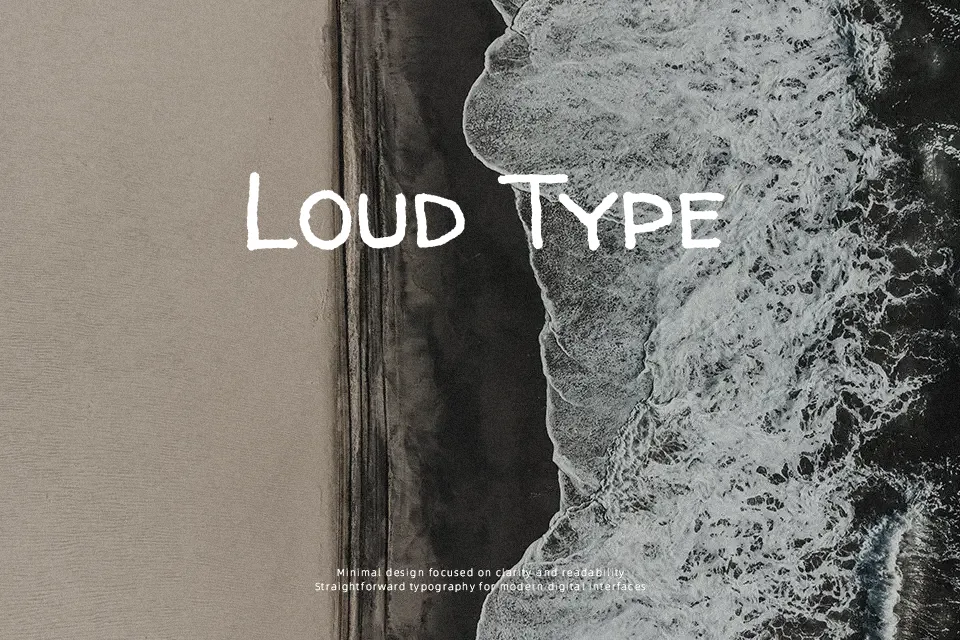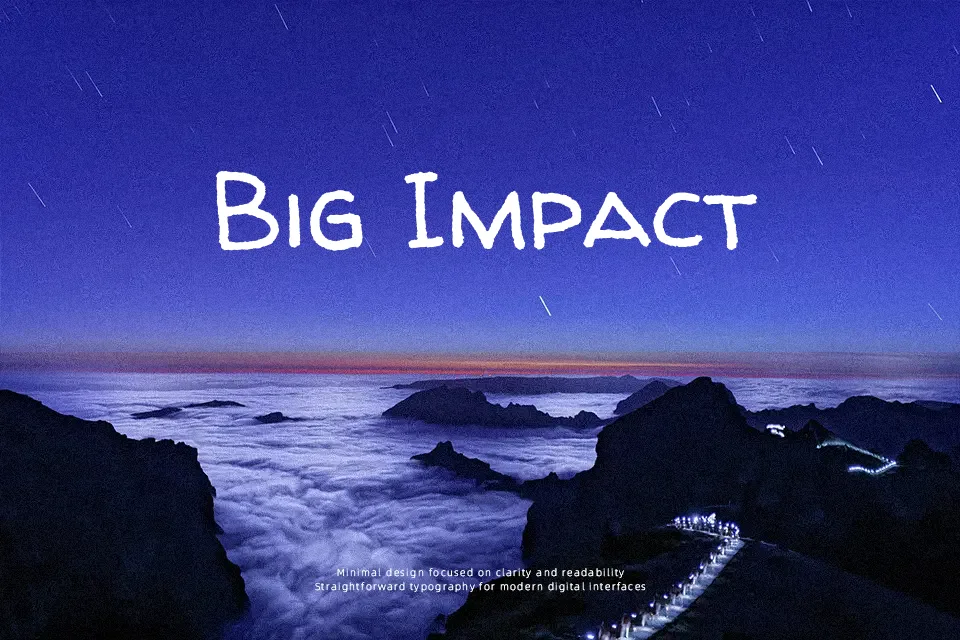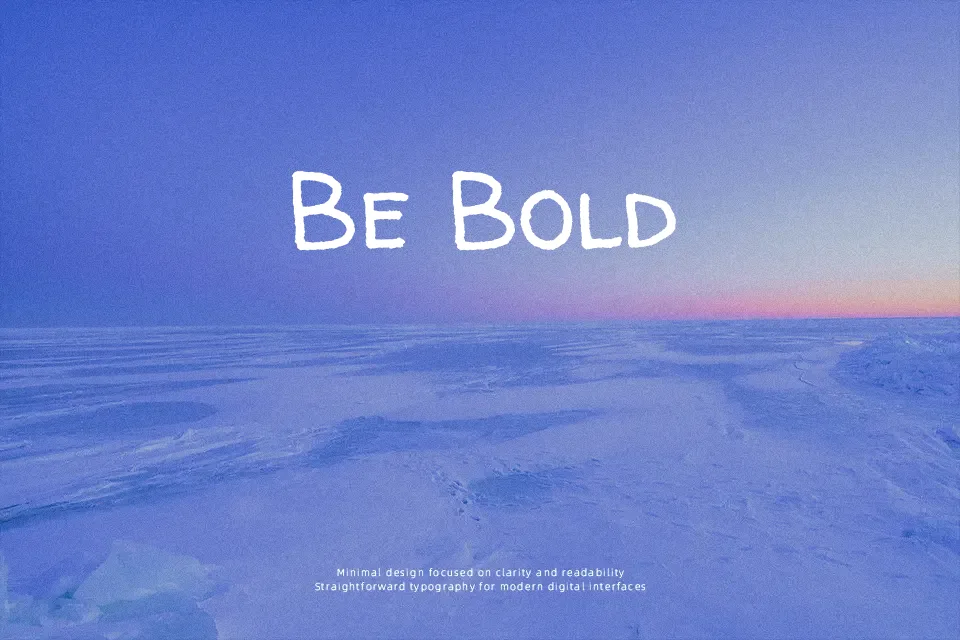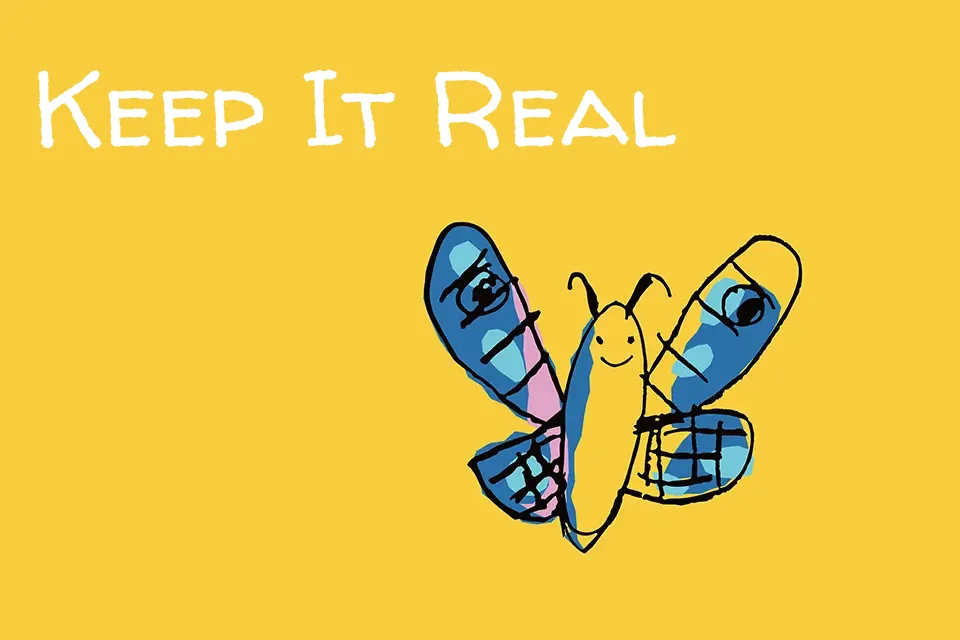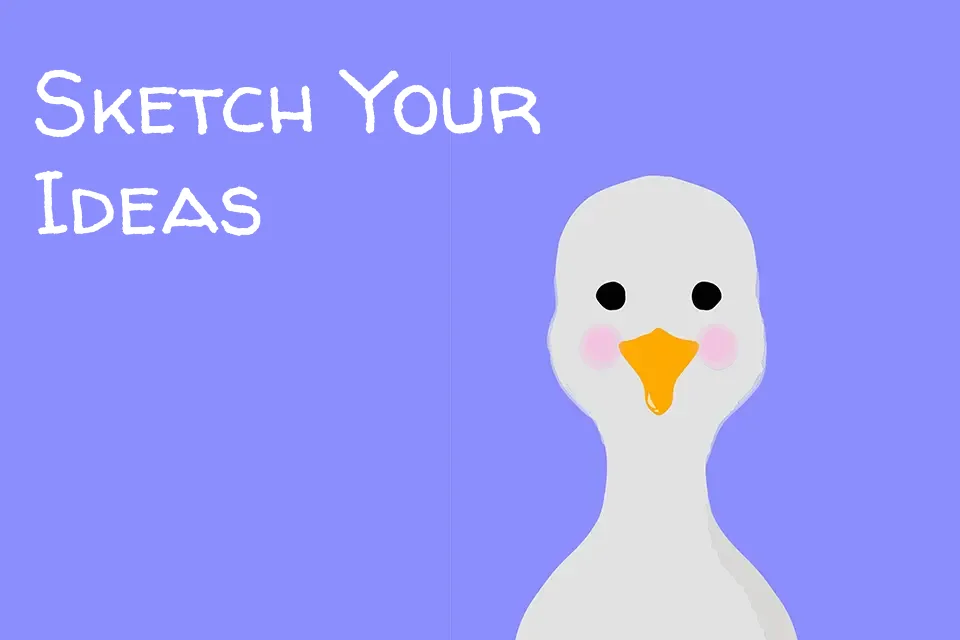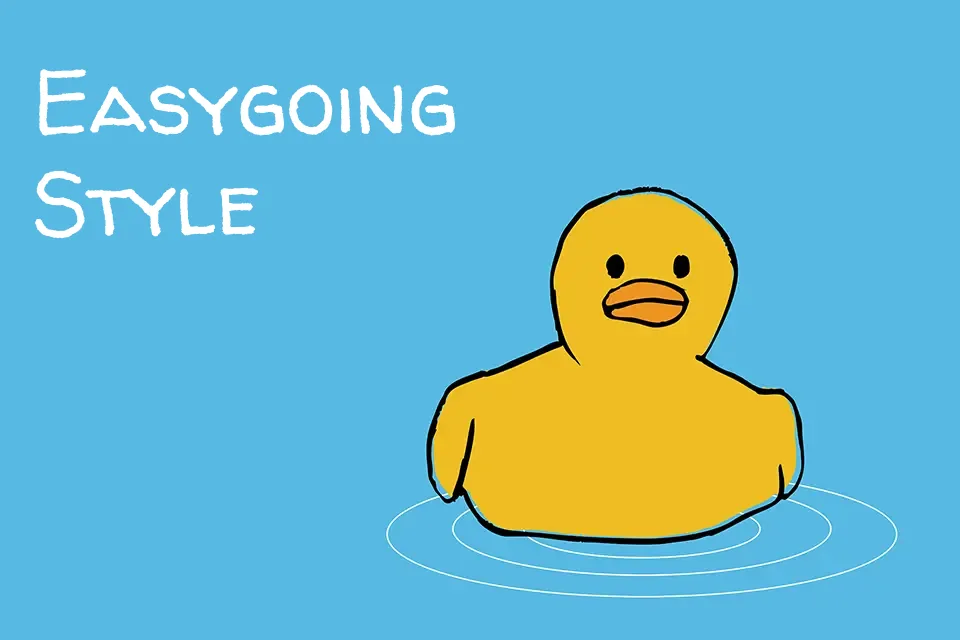
Walter Turncoat Font
Designed by Sideshow
Walter Turncoat is a casual handwritten display font with irregular strokes, rounded corners, and slightly wobbly baselines that echo neat but relaxed marker pen writing. Its letters sit fairly open, with moderate spacing that keeps text readable while still feeling informal and sketchy. The overall impression leans playful and conversational rather than polished or corporate, closer to comic lettering than script calligraphy. It works well when you need a personal, approachable voice: children’s activity sheets, classroom printables, quirky product labels, or chatty speech bubbles in illustrations. For long paragraphs, minimalist branding, or situations demanding strict typographic precision, the loose alignment can feel visually noisy, so it’s better reserved for short text and standout accents.
Children’s worksheets and classroom printables
Lighthearted posters or flyers
Kids’ product packaging and labels
Casual captions, notes, and speech bubbles
Long body text or dense paragraphs
Formal corporate branding or reports
Luxury or high-fashion identities
Highly technical UI or data-heavy layouts
Perfect for headline, kids, and packaging, with a creative and comic style.